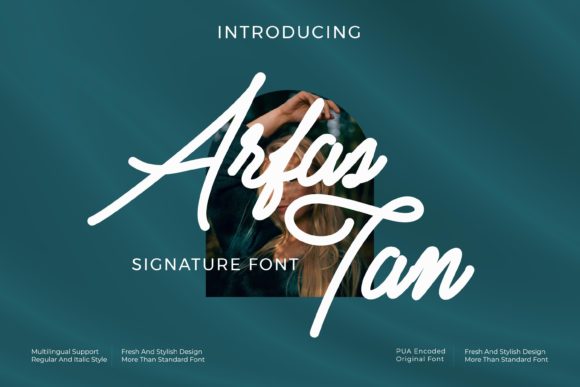
Welcome to the world of exquisite typography! Allow us to introduce Arfas Tan, the crown jewel of our script font family. Imagine your words, adorned with the grace of Arfas Tan, dancing on the page, leaving a trail of indelible beauty. Prepare to be spellbound by its captivating allure. Whether you seek to inscribe your thoughts in digital realms or adorn physical surfaces, Arfas Tan will lend its charm, leaving a lasting impression.
Visualize your designs reaching new heights of artistry, your words empowered with the distinctive flair that Arfas Tan exudes. Each letterform is a carefully orchestrated masterpiece, infused with the essence of timeless calligraphy, striking the perfect balance between delicate finesse and bold presence. Your creative potential knows no bounds as you explore the endless possibilities that await.
With Arfas Tan at your fingertips, you'll discover a font that knows no limitations. Its remarkable versatility grants it the ability to elevate any project, whether it's a personal message, a captivating social media post, or a professional presentation. Prepare to witness your words come alive, captivating your audiences with every stroke.